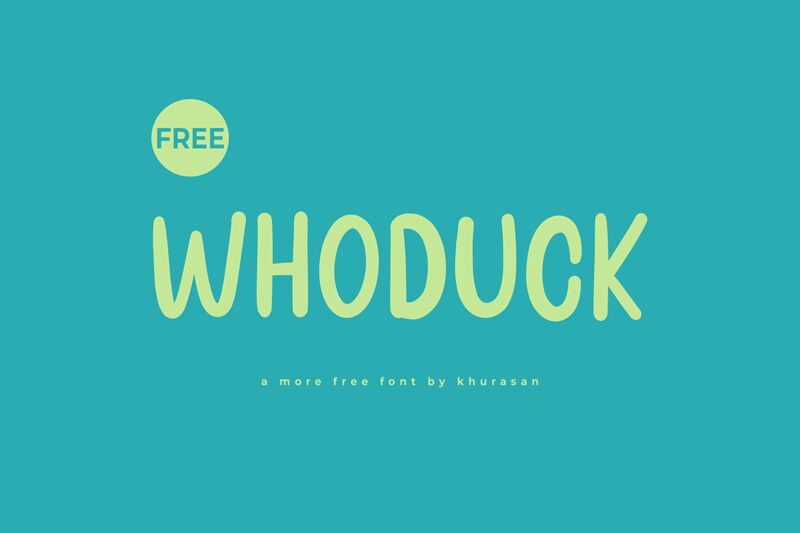
Whoduck
With its whimsical, cartoon-inspired aesthetic, the Whoduck font by Khurasan exudes a sense of lightheartedness and charm. The bold, playful letterforms feature distinctive curved edges and a delightfully uneven quality, evoking a handcrafted, organic feel. This display font's unique character and expressive personality make it an ideal choice for a wide range of design projects that seek to capture a playful, eye-catching vibe.
The Whoduck font's versatility allows it to shine in various applications, from quirky branding and product packaging to attention-grabbing headlines and vibrant event materials. Its lively, approachable style lends itself particularly well to children's designs, educational resources, and playful marketing campaigns, where its ability to instantly captivate and delight the viewer can be leveraged to great effect.